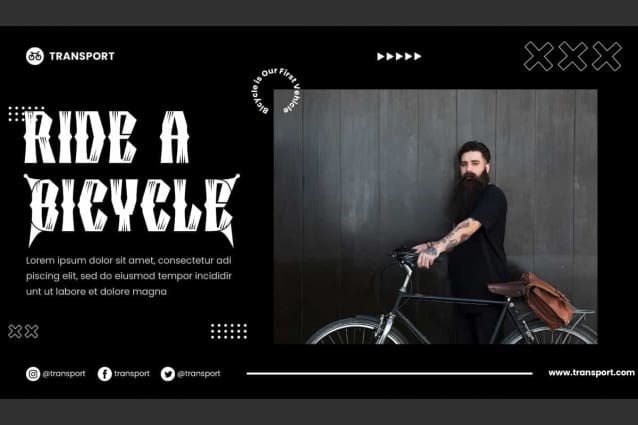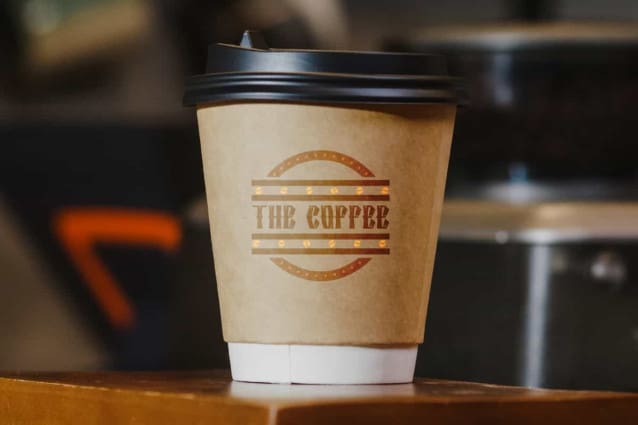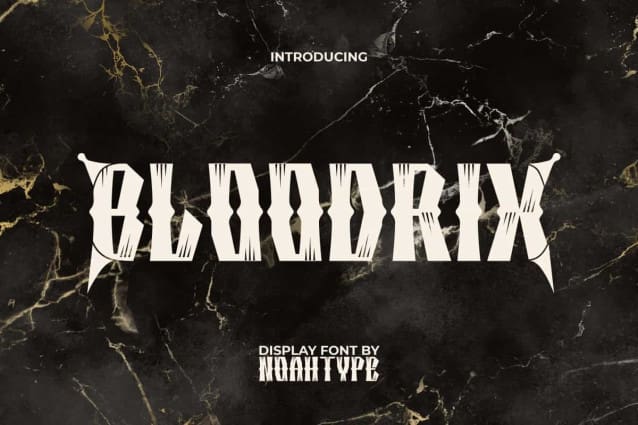
Bloodrix Display Font
Bloodrix Display Font is a unique decorative hardcore and sporty racing font by NoahType. This font can give a bold and sharp impression, as well as additional graphics in the unique character corners. It will be perfect for any designs, such as brand image, custom design, invitation, label, marketing material, menu, poster, printing, product packaging, quotes, signage, website, and many more!
Bloodrix Display Font includes full set of ALL CAPS for Uppercase and Lowercase Basic Characters, Numerals, Punctuation, and Symbol. This font have Alternate characters that will give amazing touch and also a perfect choice for many industries, such as accessories, advertising, automotive, barber shop, cafes, fashion, game, movie, music, printing, publishing, etc.